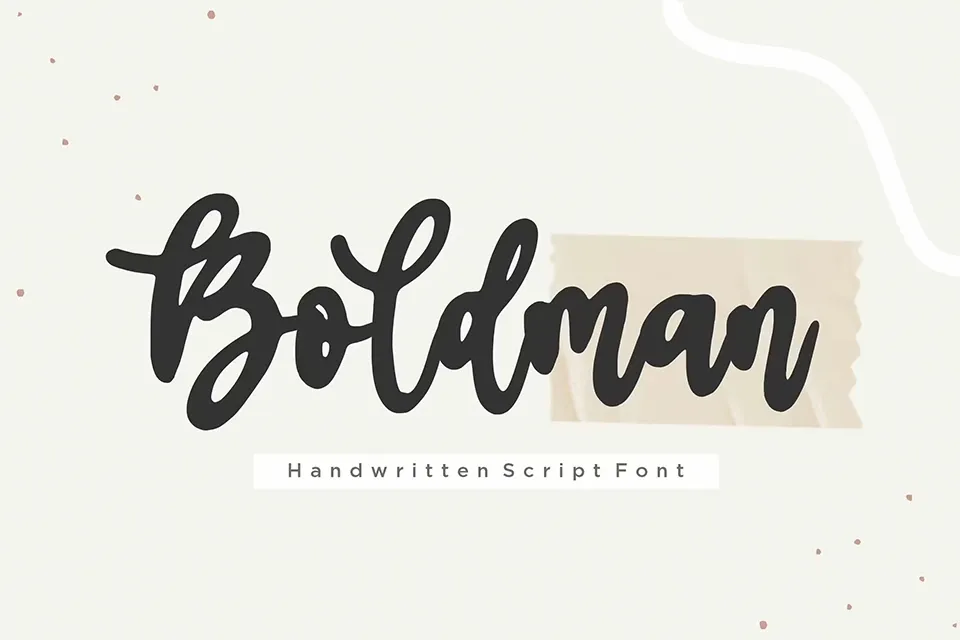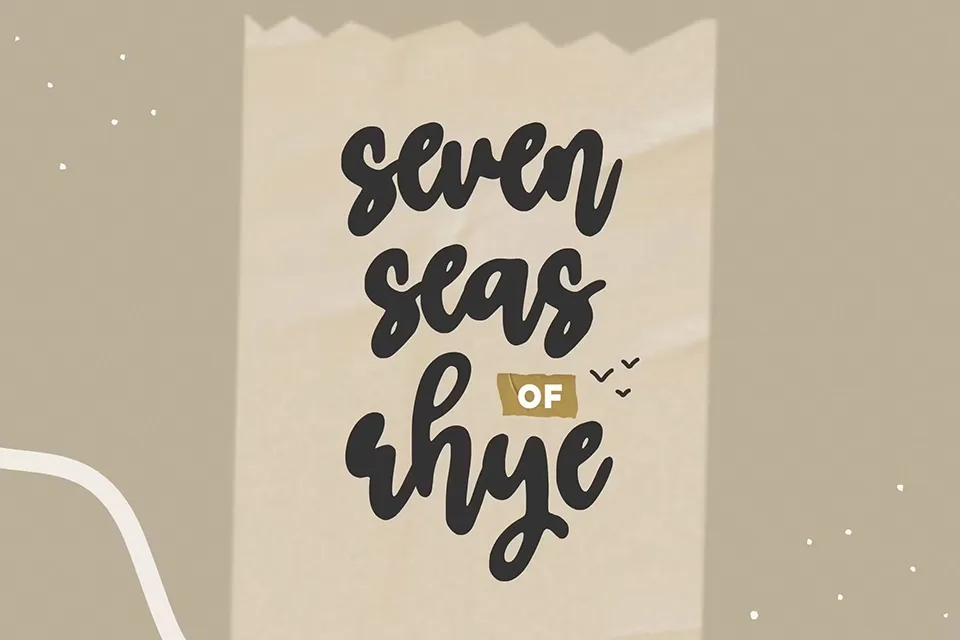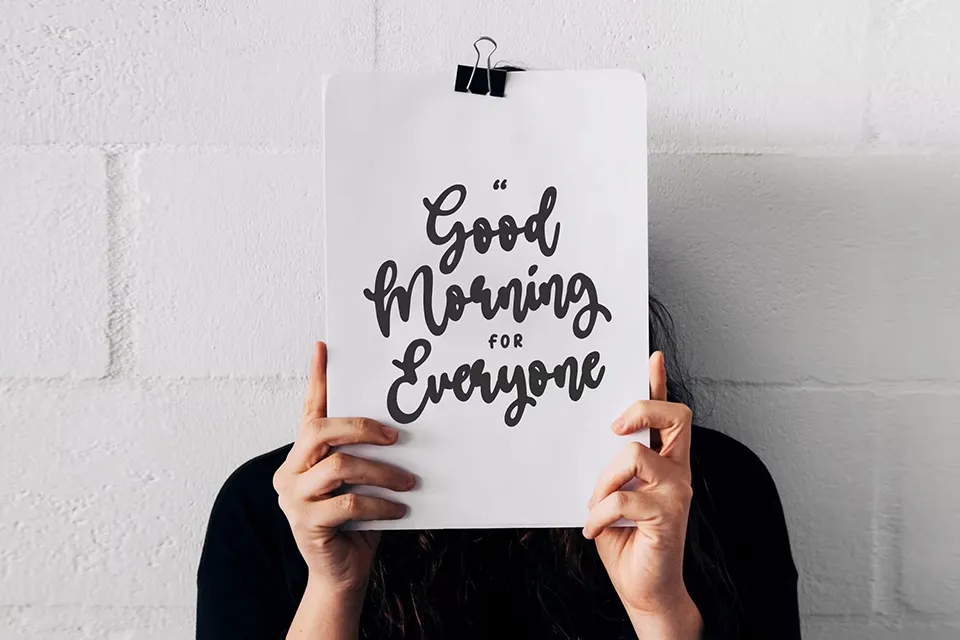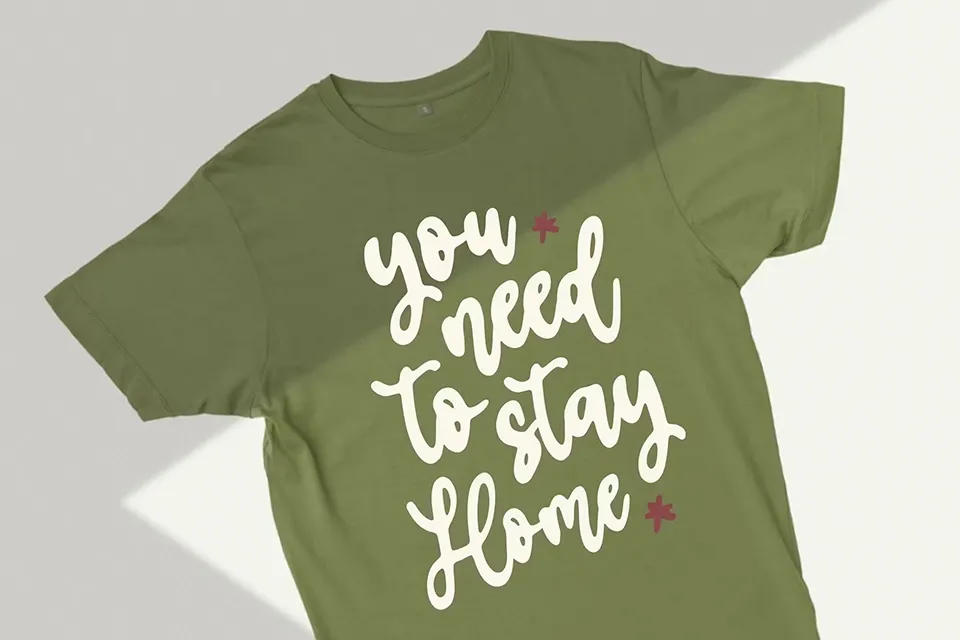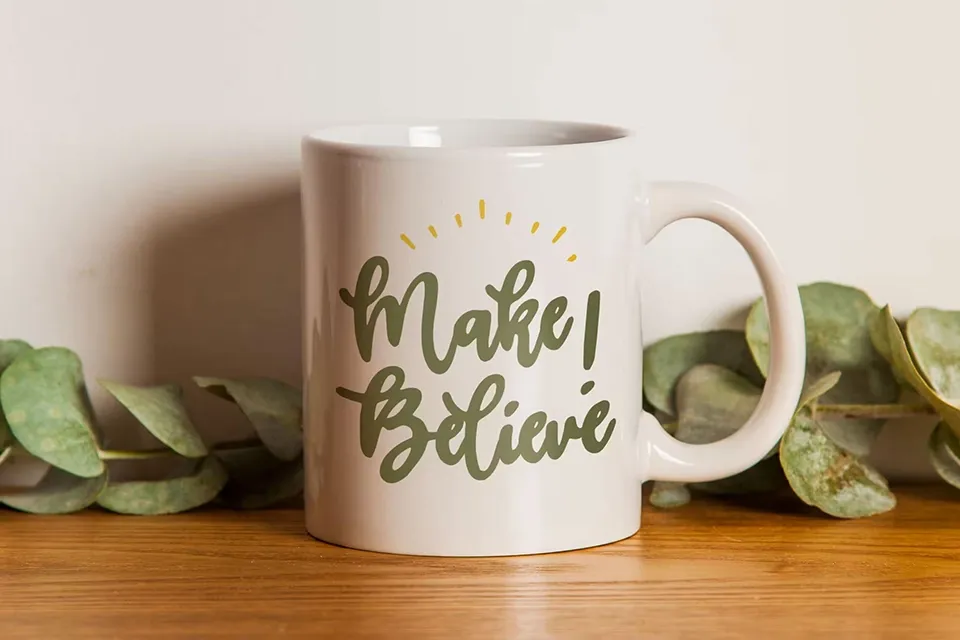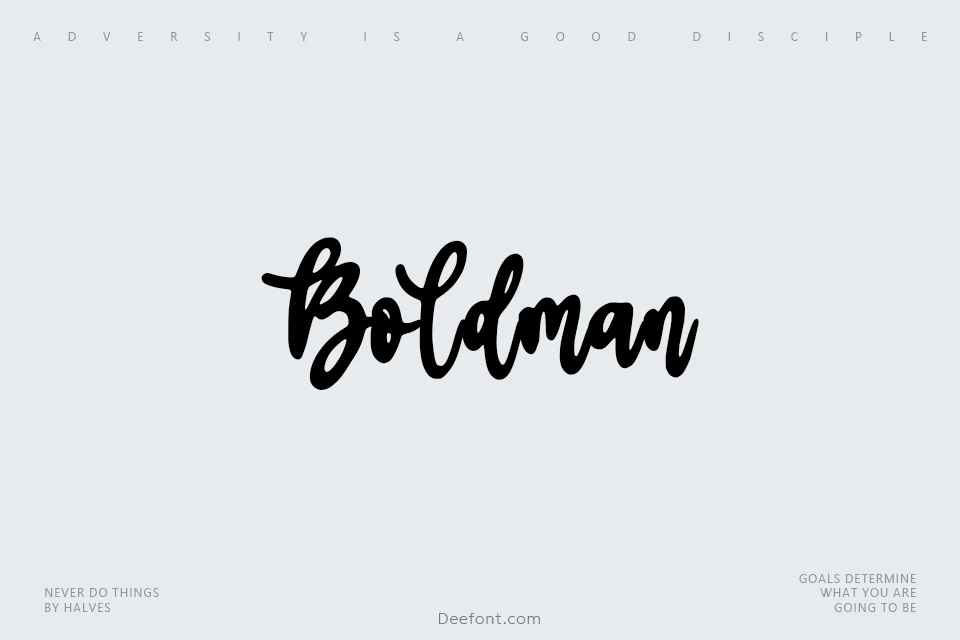
Boldman Font
Boldman Font is a chic, trendy handwritten script font that exudes confidence and versatility. With stylish alternates and ligatures, this font is perfect for a wide range of creative projects, from branding to invitations, providing a modern handwritten touch to your designs.